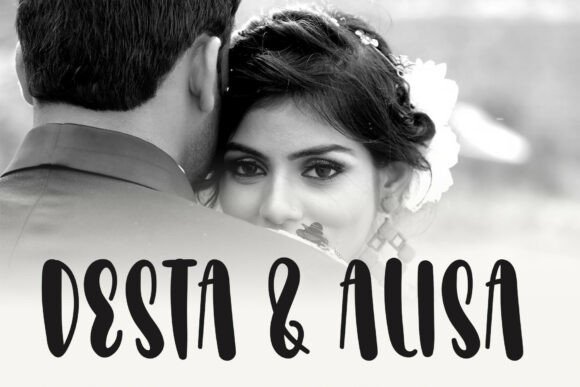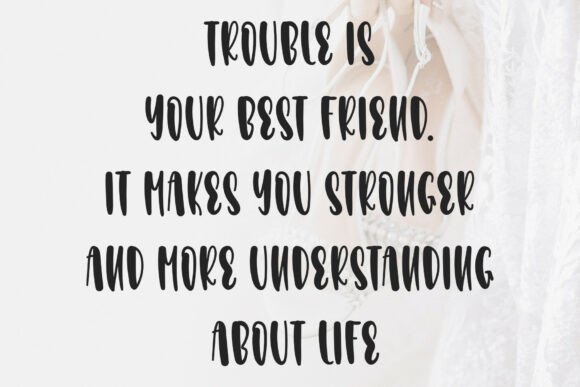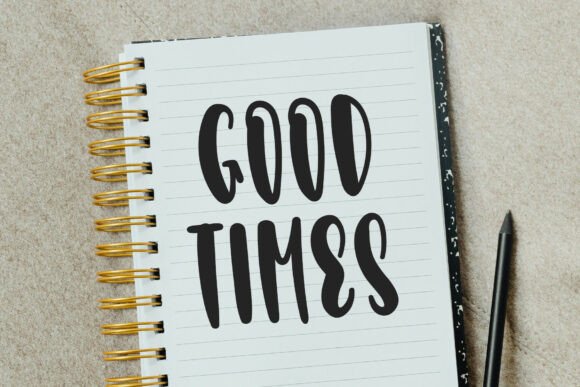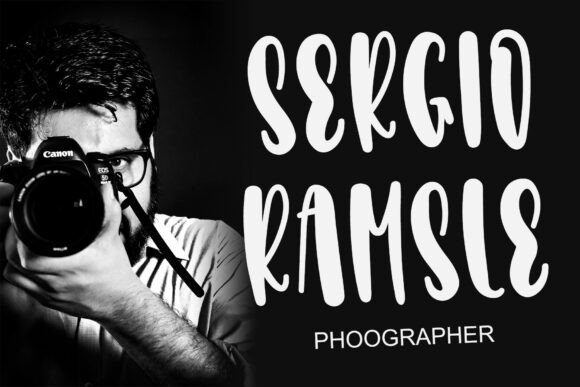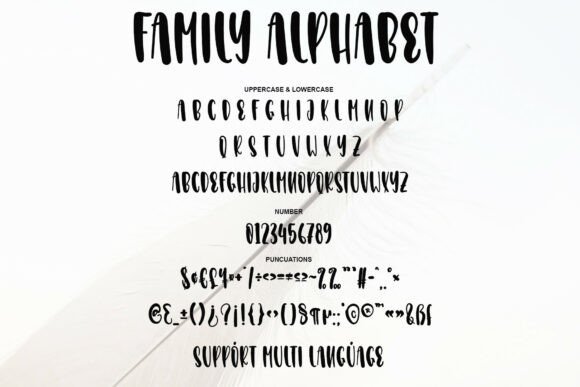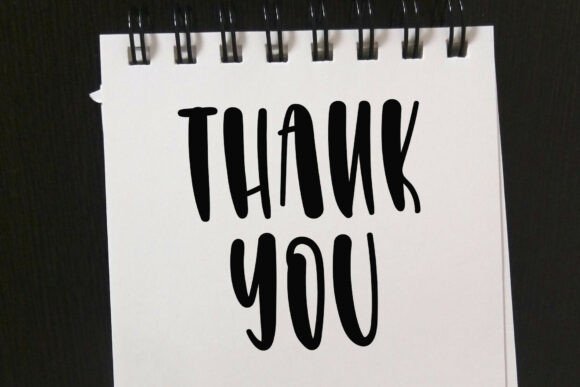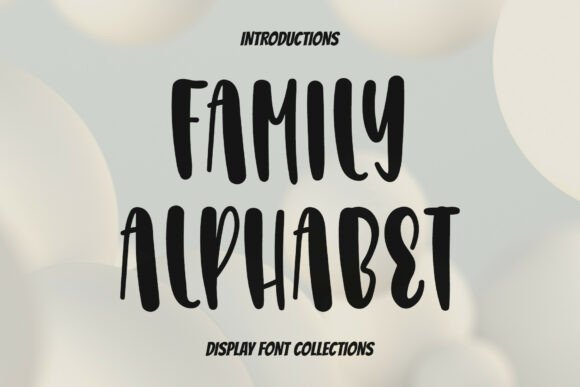
Introducing Family Alphabet Font: The Perfect Choice for Cheerful Designs
Are you a designer or crafter looking for a fun and quirky display font to add a touch of personality to your projects? Look no further than Family Alphabet Font! This delightful font is perfect for use on cheerful topics and is especially suitable for children’s themed designs, particularly when paired with bright colors.
What is Family Alphabet Font?
Family Alphabet Font is a unique and playful display font that is sure to capture the attention of your audience. Its fun and quirky design makes it an excellent choice for a variety of projects, from children’s books and educational materials to posters, flyers, and more.
Key Features of Family Alphabet Font
- Fun and Quirky Design: Family Alphabet Font features a playful and whimsical design that is sure to add a touch of personality to your projects.
- Perfect for Children’s Designs: The font’s cheerful and lively design makes it an excellent choice for children’s themed designs, including books, posters, and educational materials.
- Works Well with Bright Colors: Family Alphabet Font looks particularly striking when paired with bright colors, making it an excellent choice for designs that require a pop of color.
- Easily Readable: Despite its playful design, Family Alphabet Font is easily readable, making it an excellent choice for both digital and print projects.
Use Cases for Family Alphabet Font
Family Alphabet Font is a versatile font that can be used in a variety of projects, including:
- Children’s Books: Add a touch of personality to your children’s book with Family Alphabet Font, perfect for titles, headings, and illustrations.
- Educational Materials: Use Family Alphabet Font to create engaging and interactive educational materials, such as worksheets, posters, and activity sheets.
- Posters and Flyers: Add a pop of color and personality to your posters and flyers with Family Alphabet Font, perfect for advertising events, products, or services.
- Digital Designs: Use Family Alphabet Font in your digital designs, such as social media graphics, blog posts, and website headers.
Tips for Using Family Alphabet Font
To get the most out of Family Alphabet Font, here are a few tips to keep in mind:
- Pair with Bright Colors: Take advantage of Family Alphabet Font’s playful design by pairing it with bright colors to create a bold and eye-catching design.
- Use in Combination with Other Fonts: Experiment with using Family Alphabet Font in combination with other fonts to create a unique and visually appealing design.
- Experiment with Different Sizes: Family Alphabet Font looks great in a variety of sizes, from large display headings to smaller body text.
Family Alphabet Font is a fun and quirky display font that is perfect for use on cheerful topics, especially children’s themed designs. With its playful design, easily readable text, and versatility, Family Alphabet Font is an excellent choice for designers and crafters looking to add a touch of personality to their projects. Whether you’re creating children’s books, educational materials, posters, or digital designs, Family Alphabet Font is sure to be a great addition to your design toolkit.